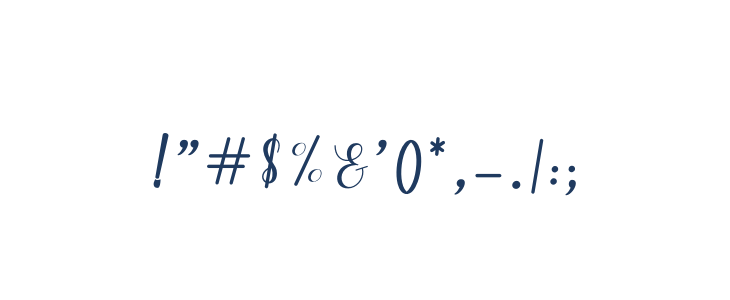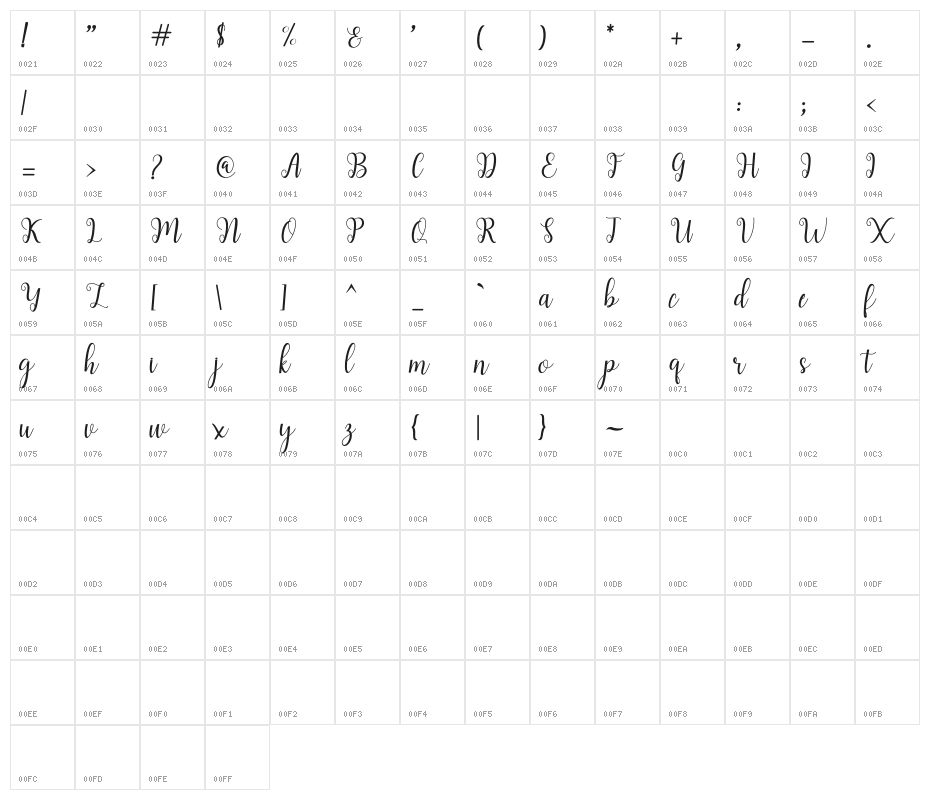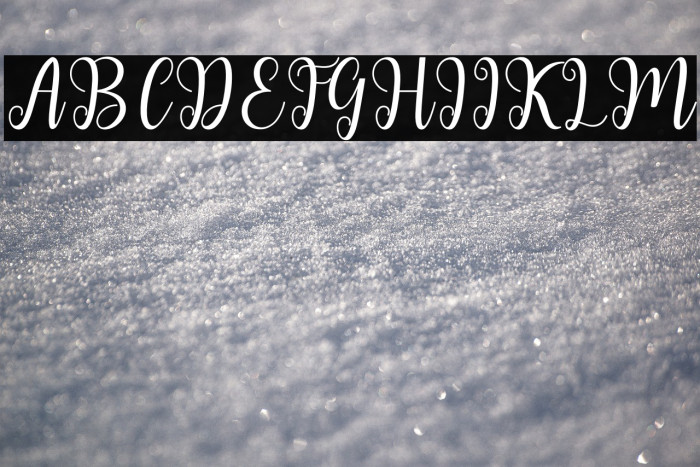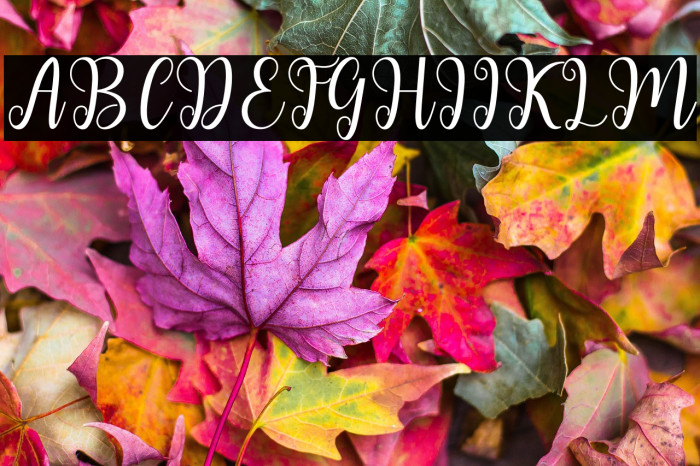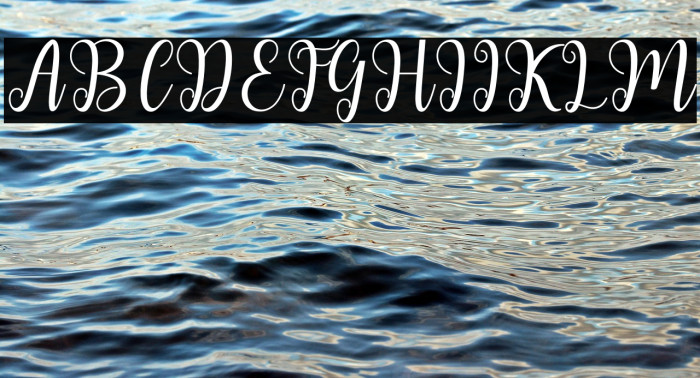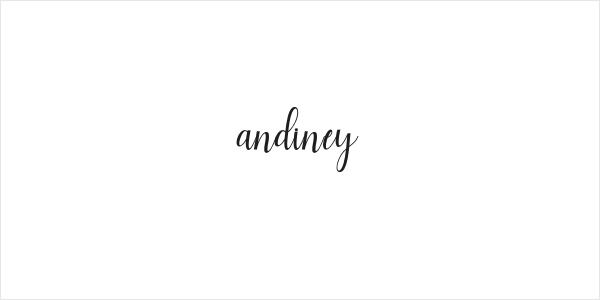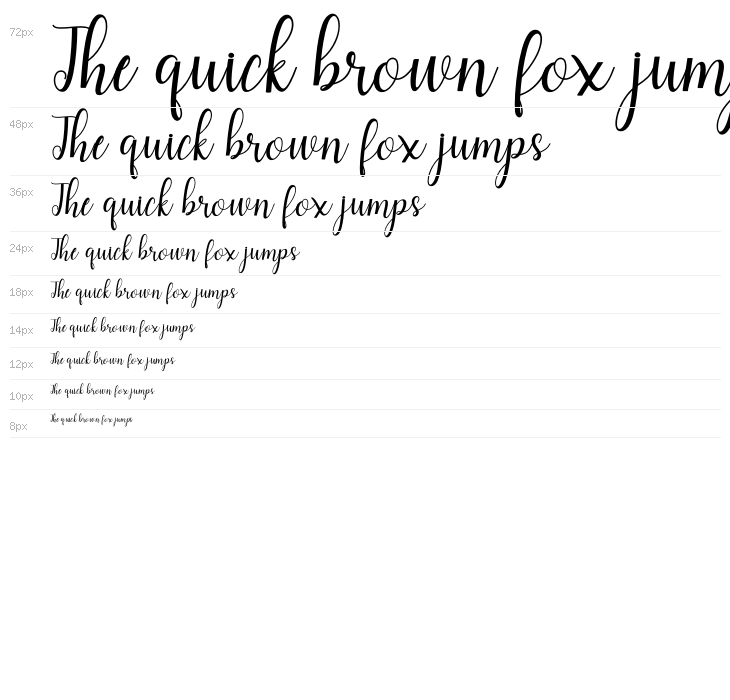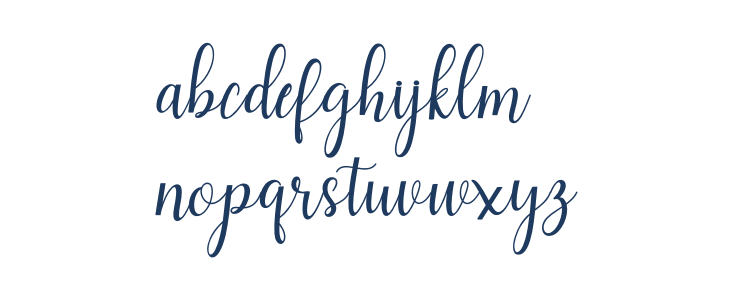
andiney Font
andiney Description
This font features an elegant and flowing script style, characterized by its ornate and decorative swirls. The uppercase letters are particularly elaborate, with loops and curves that give a sense of movement and grace. The lowercase letters maintain a consistent style, with a slightly more restrained flourish, making them highly readable while still retaining a decorative touch. The numerals and special characters are designed to match the overall aesthetic, with a playful yet sophisticated appearance. This font is ideal for creating a sense of elegance and sophistication in any design project.
| Use Case | Logos, Invitations, Decorative headings |
| Proposed Projects | Ideal for wedding invitations, greeting cards, branding, and elegant packaging designs. |